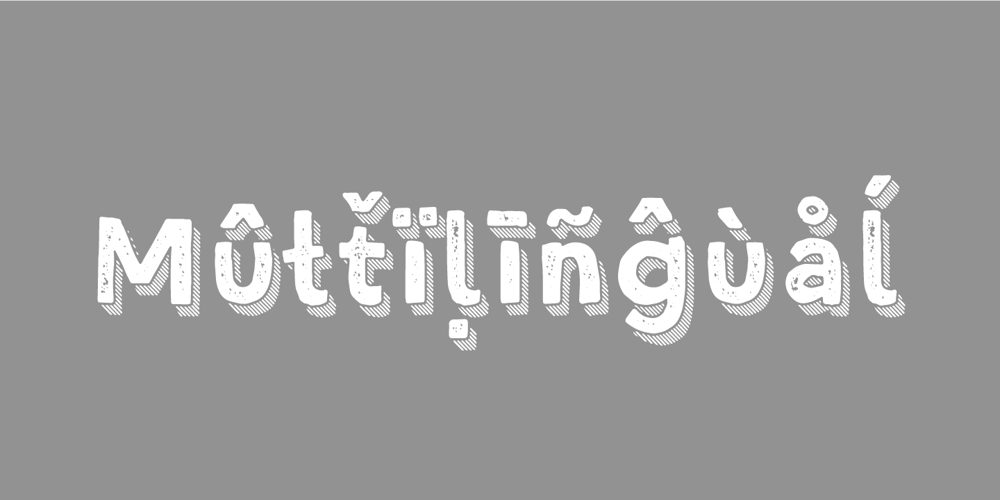
Lucky Lunch
Lucky Lunch font
Lucky Lunch Font Family was designed by Jakob Fischer and published by PizzaDude.dk. Lucky Lunch contains 4 styles and family package options. A font to boost your creative work – handmade strokes and a scribbled 3d effect! Use the 4 different versions to create cool effects. With, or without shadow and with or without the worn effect!